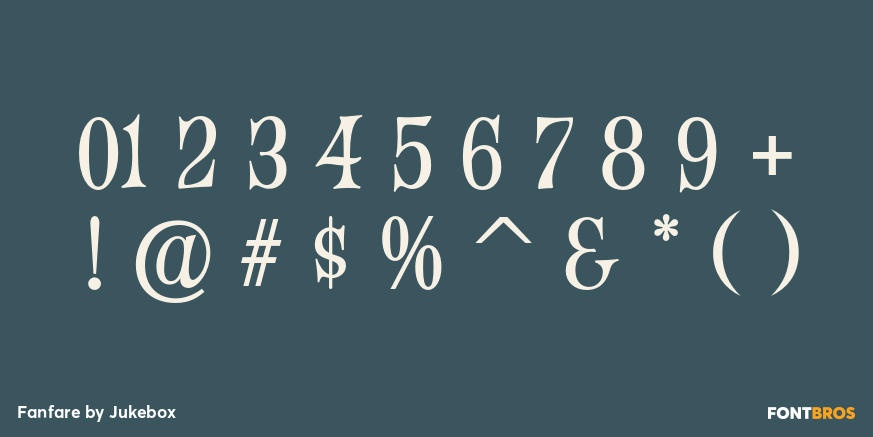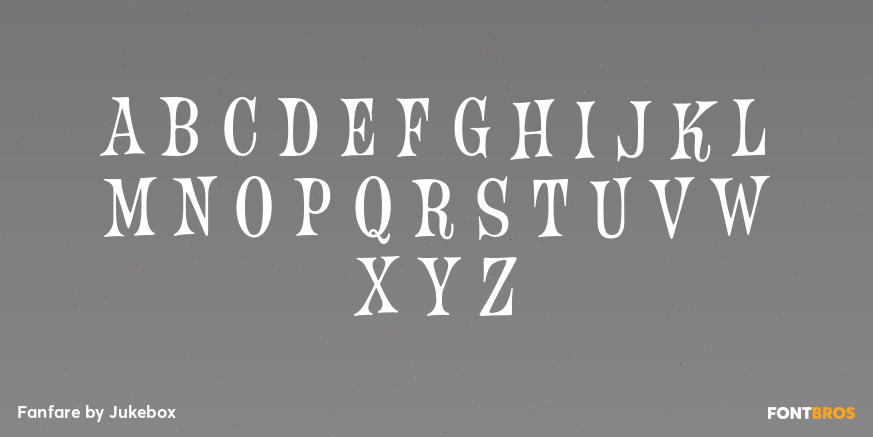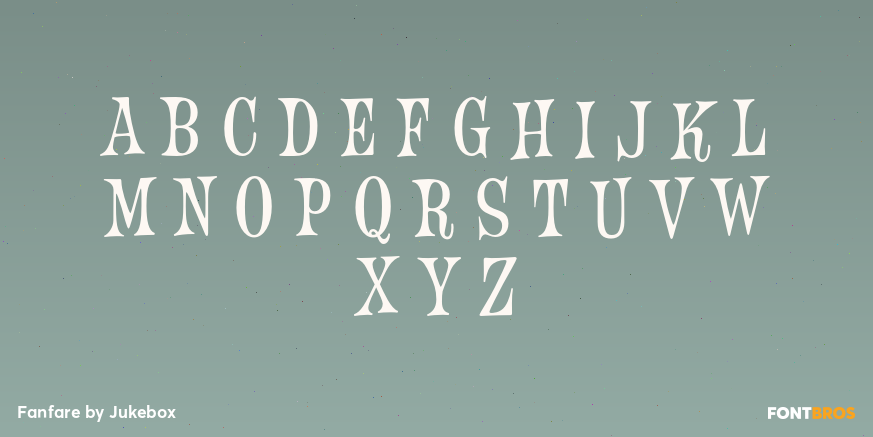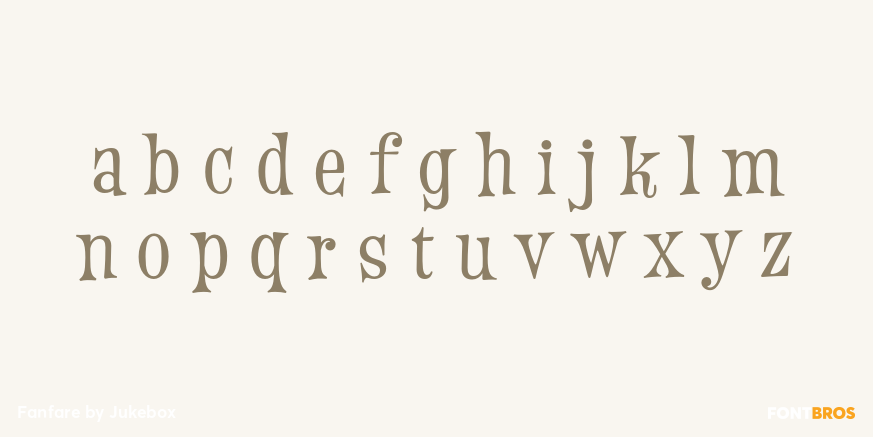
Fanfare
Font Family by Jukebox
Fanfare is a digital revival of an older photo-typositing font that is just bursting with fun and laughter. A Latin-style serif font with a modulated baseline, Fanfare evokes a sense of happiness and lighthearted innocence. Perfect for a wide variety of design projects!